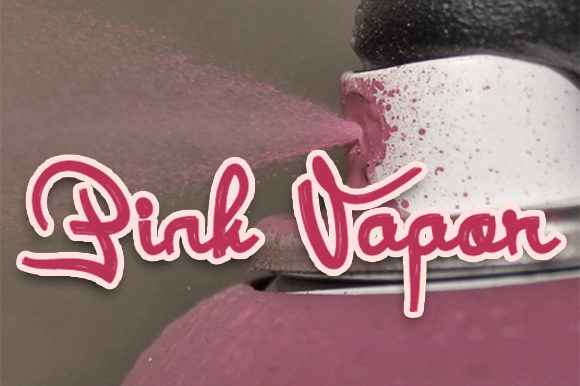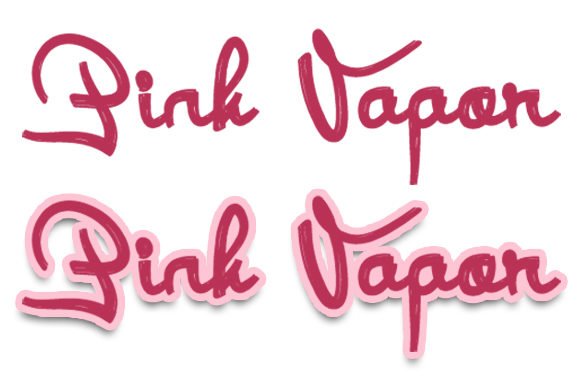
Introduction to Pink Vapor Font
Pink Vapor is a cute little Graffiti font that will add an urban vibe to any design idea.
Pink Vapor is a cute little Graffiti font that will add an urban vibe to any design idea!
Why Choose Pink Vapor Font?
Pink Vapor Font offers exceptional quality and versatility, making it a valuable addition to your design toolkit. Whether you’re creating for personal projects or commercial use, Pink Vapor Font delivers professional results.